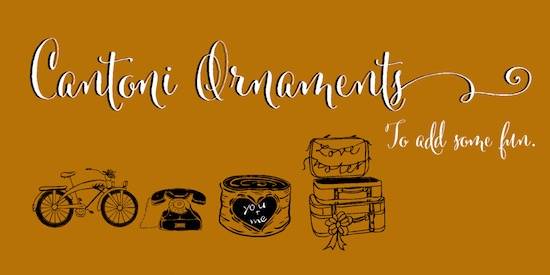
Cantoni Font
Introducing the new Cantoni Calligraphy Script font will be great for many graphic design and printing projects such as flyers, business cards, logos, branding, stationery, signage, brochure, and so on. The theme style of this font is sophisticated, sport, luxury, classy, old school, stylish, vintage style. So that, this Calligraphy font will be matched for design industries like hotel, real estate, florist, makeup artist, events, wedding, promotion, sports team, gardening, musician, travel, and so on.
Cantoni font is a famous fresh calligraphy typeface that was released by Debi Sementelli Type Foundry. Along with 7 unique styles, this font will make your every design more beautiful a lot.